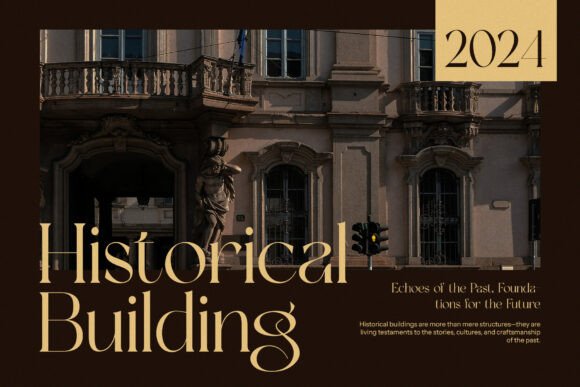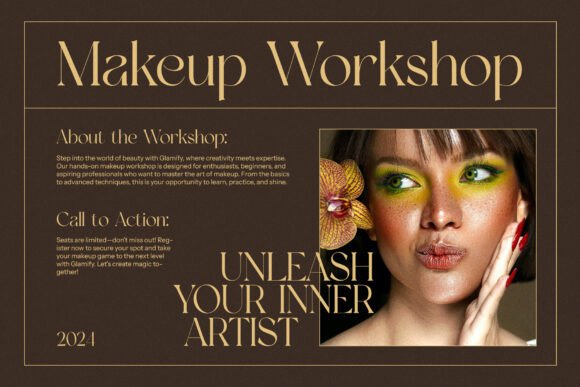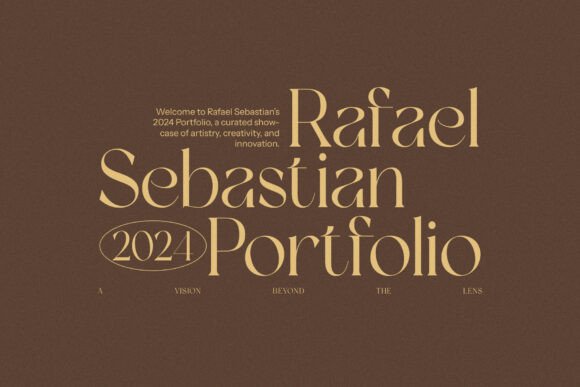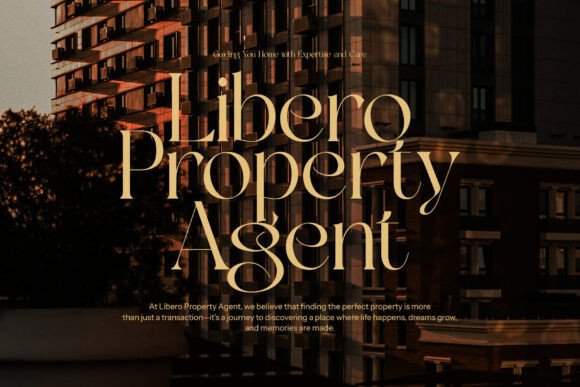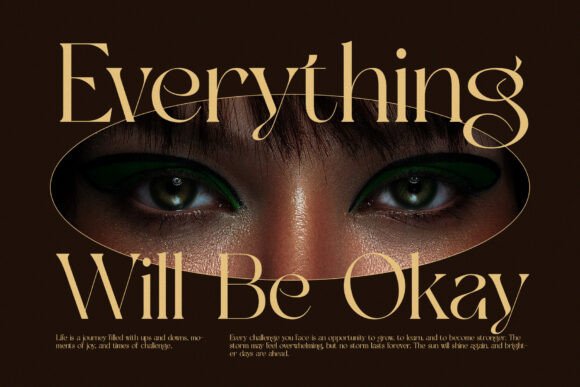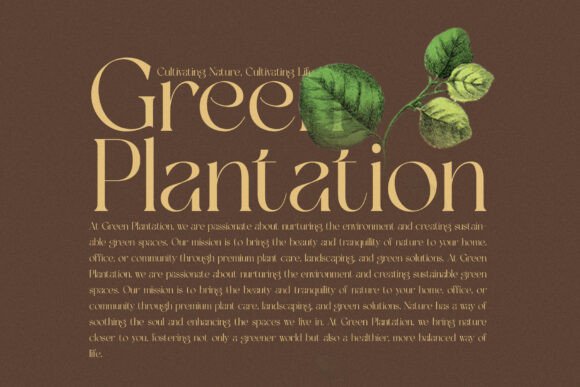
Introduction to Mafgin Font
Remember that moment when you’re working on a design project, and you can’t quite find the perfect font to bring your vision to life? The hours tick by as you scroll through countless options, and yet, nothing seems to capture the essence of your creative idea. It’s a moment we’ve all been there – designers, artists, and writers alike. But what if we told you that there’s a font that could change all that?
Enter Mafgin Font, a beautifully crafted typeface that seamlessly blends modern design with classic sophistication. This stunning font is more than just a pretty face – it’s a game-changer for designers who crave a touch of luxury and timeless appeal in their work. With its elegant serifs and refined letterforms, Mafgin Font is the perfect design resource for anyone looking to elevate their creative project to new heights.
Key Features of Mafgin Font
- Unique, hand-drawn design for creative projects
- High-quality, transparent background for seamless integration
- Perfect for designers and artists working on creative projects, including digital art, graphics, and more
- Designed with a high-resolution (300 DPI) for print and digital use
- Comes in a range of styles and weights, making it a versatile design resource
Honest Review: Mafgin Font
I recently had the chance to work with the Mafgin Font, and I must say it’s been a game-changer for my creative projects. The high quality of this font is simply stunning, making it perfect for any design resource I need.
Here are some aspects that work well: ✨
- Transparent background: The transparent background feature allows for seamless integration with other design elements.
- Wide range of applications: The Mafgin Font can be used for a variety of creative projects, from logos to graphics and beyond.
However, I did encounter some limitations: ⚠️
- Not ideal for small text: The Mafgin Font is best suited for larger text sizes, as it can become difficult to read at smaller sizes.
- Limited font styles: While the Mafgin Font is available in a range of styles, it’s not as extensive as some other fonts on the market.
Overall, I’m thoroughly impressed with the Mafgin Font. Its high quality and versatility make it a valuable design resource, and its free download feature is a huge bonus. I highly recommend giving it a try for your next creative project!
Tips for Getting the Most Out of Mafgin Font
Experiment with different font styles and combinations to create unique designs. Use the Mafgin Font in conjunction with other design elements, such as graphics and images, to add depth and interest to your project.
The Mafgin Font is perfect for a variety of creative projects, including graphics, presentations, and documents. Its transparent background and high-quality design make it an ideal choice for designers and non-designers alike.
Mafgin Font is a high-quality font that comes in various styles, including those with transparent backgrounds. This feature allows designers to create unique and eye-catching designs with a transparent background, making it a valuable design resource for creative projects.